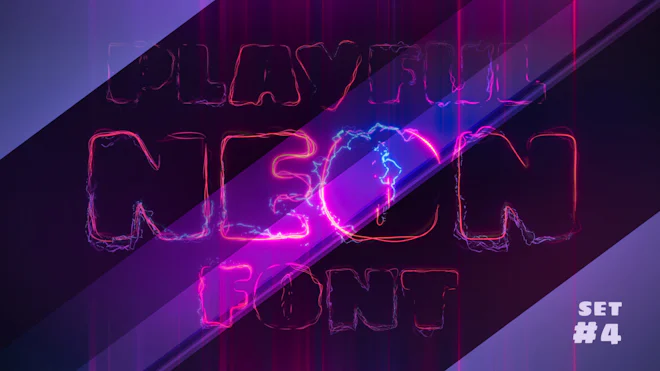
Variably paced multicolor neon curves, electric arcs and bright lightnings form a loopable alphabet characters to be used for creating animated titles, words, signs and so on.
The whole pack consists of 53 characters and includes uppercase letters, numerals, currency signs, some special symbols and punctuation for bright and striking dynamic typography of your project.
Bold and playful letter shapes along with predefined color scheme gives plenty of cases this font could be applied for. Overall outline width is balanced for inverse usage if you would like to increase width of curves, do black on white or even give lower contrast for the type.
Glow and blur effects are not applied so that you could do it according to your project look.